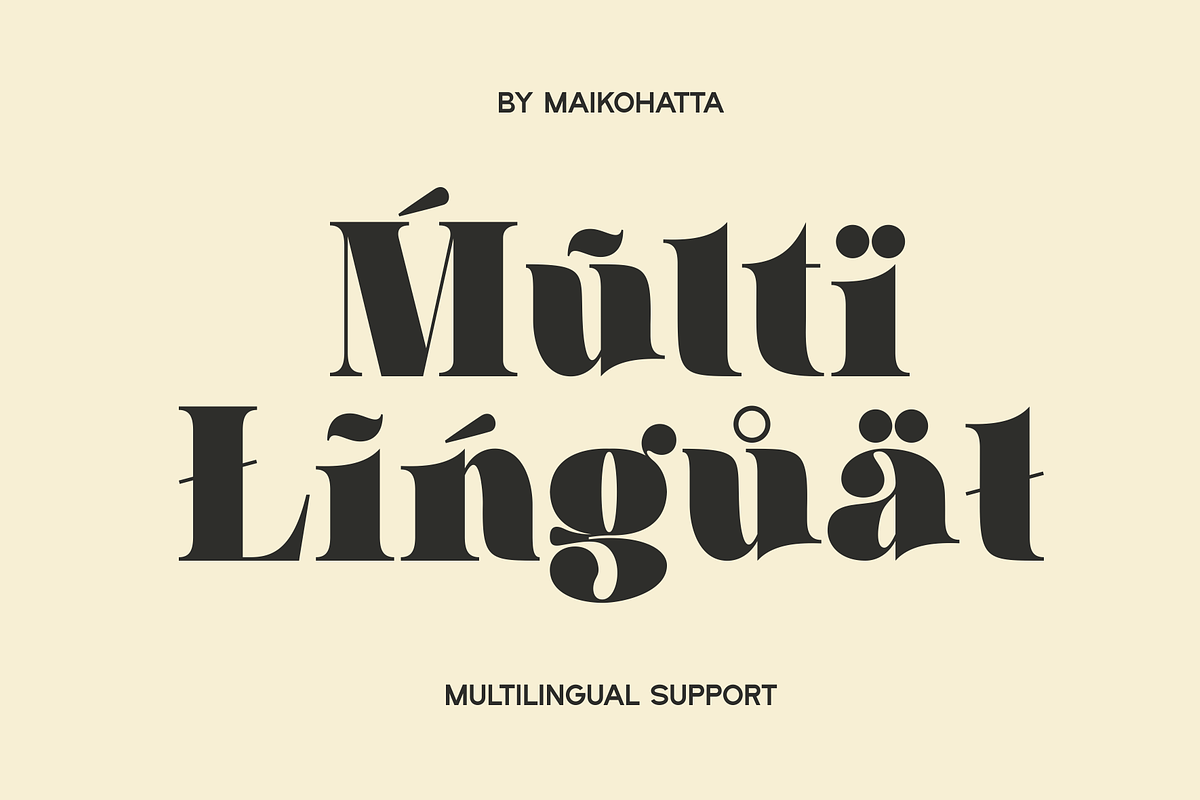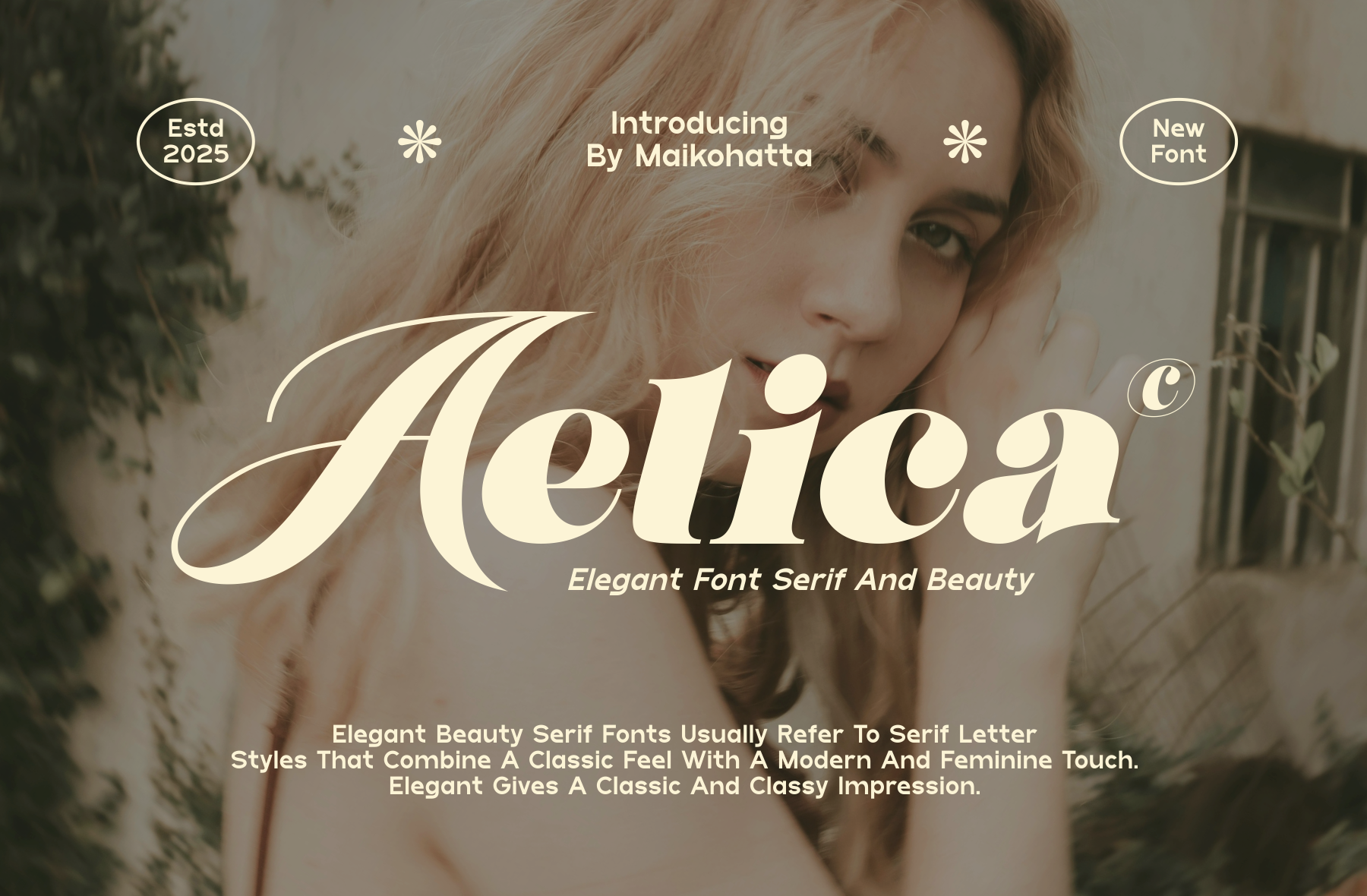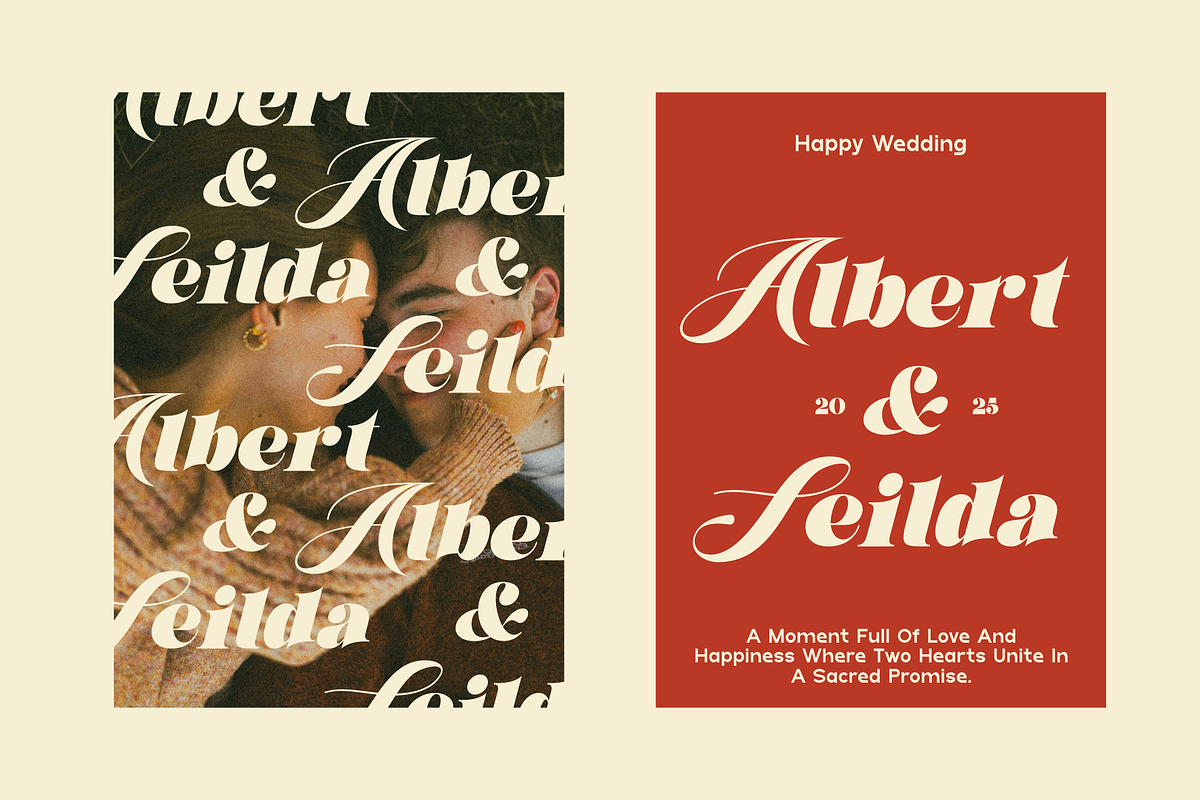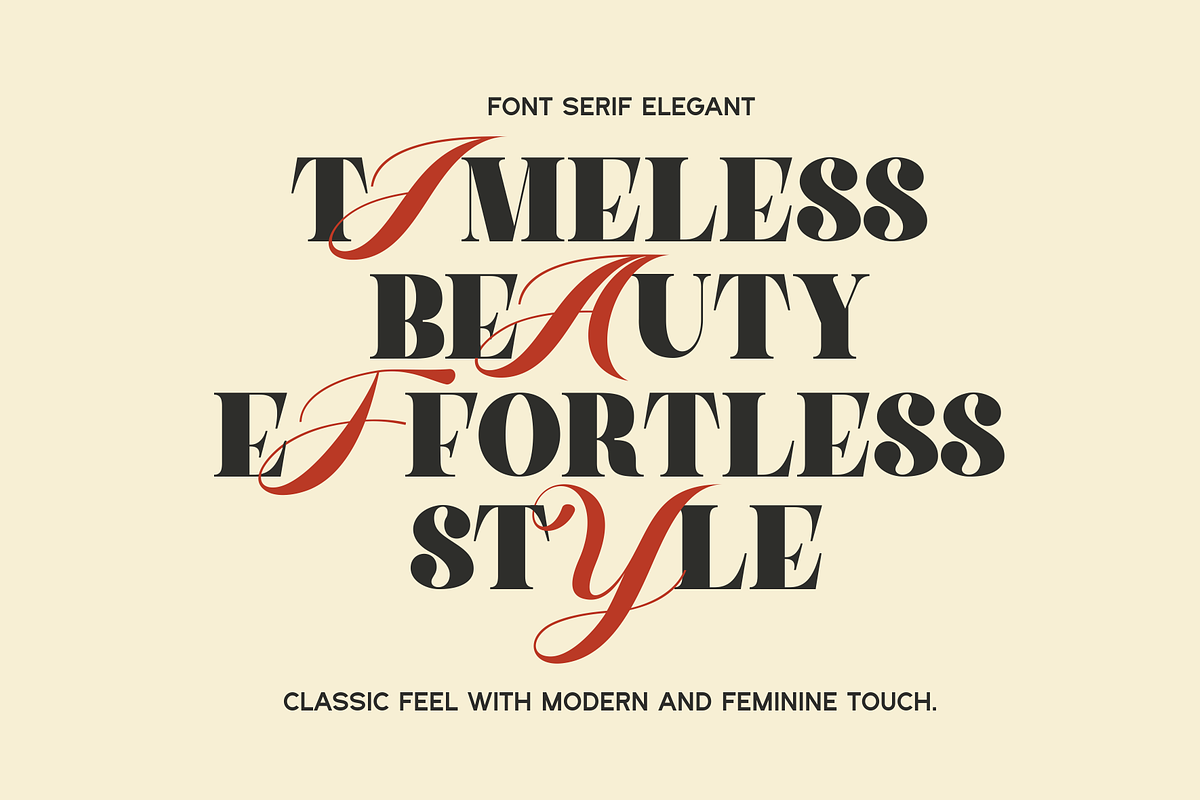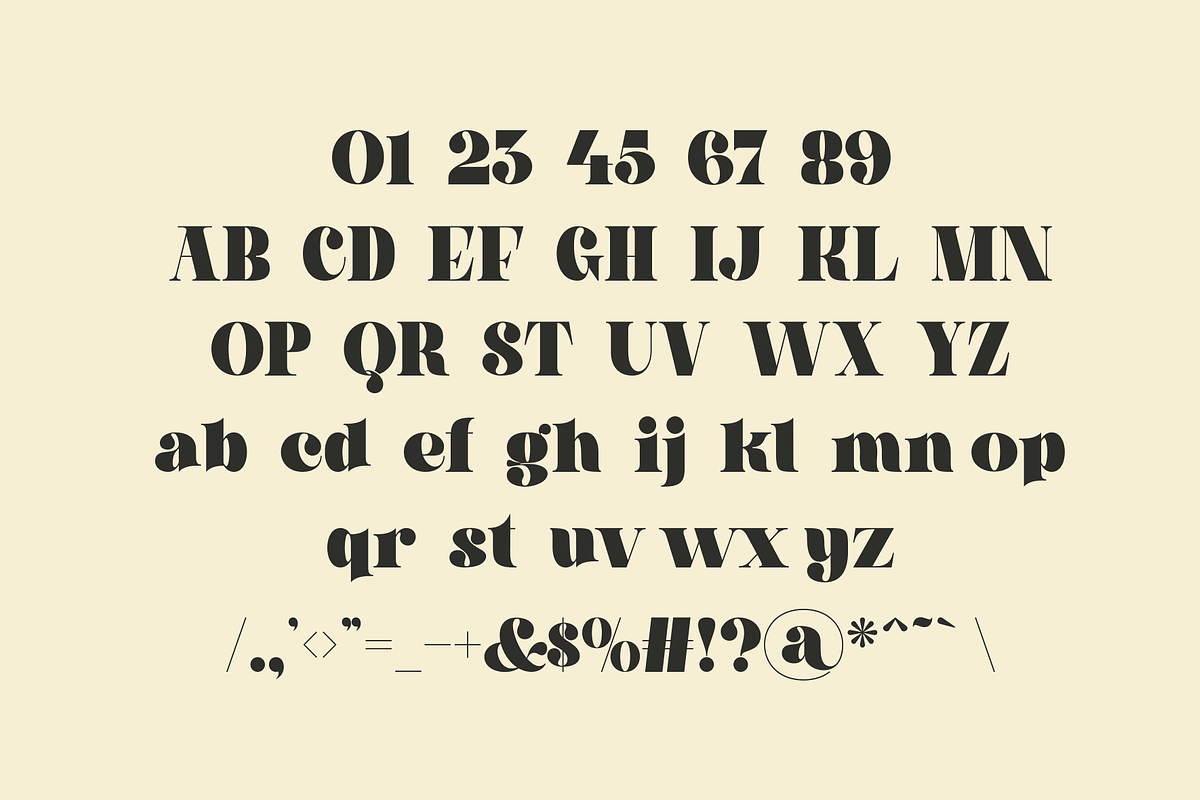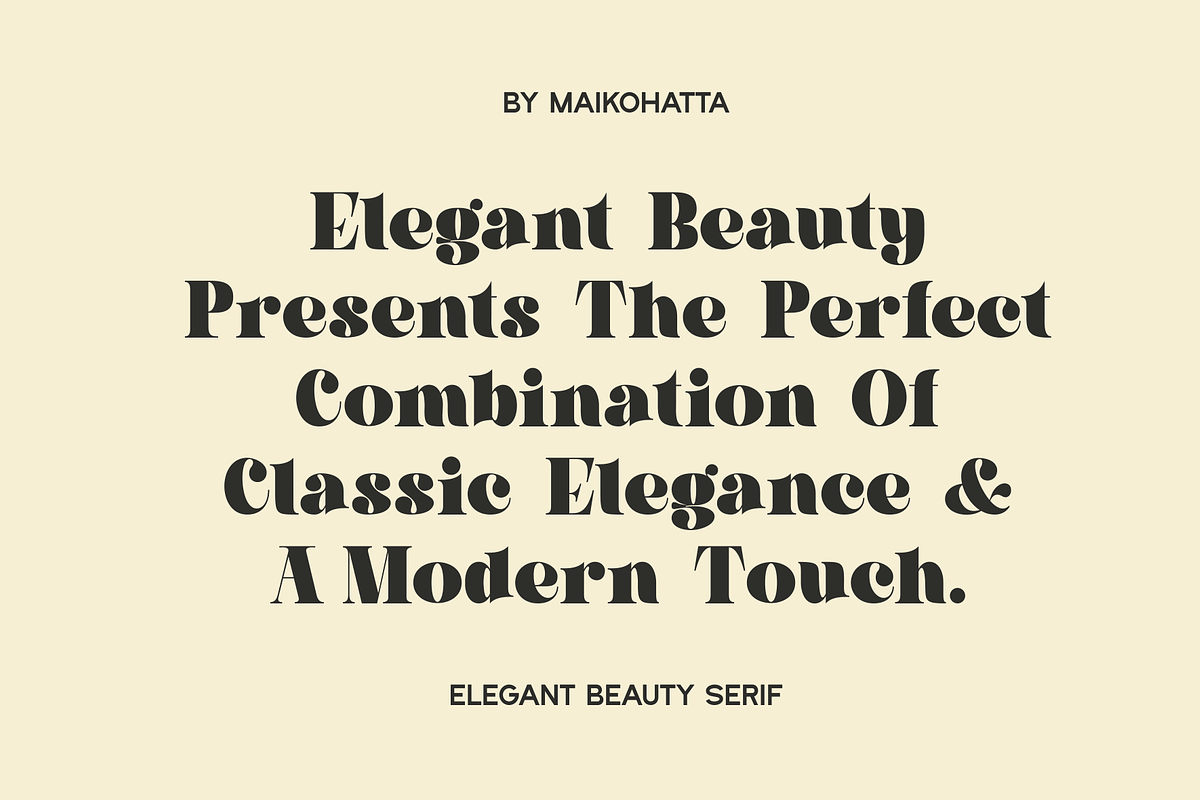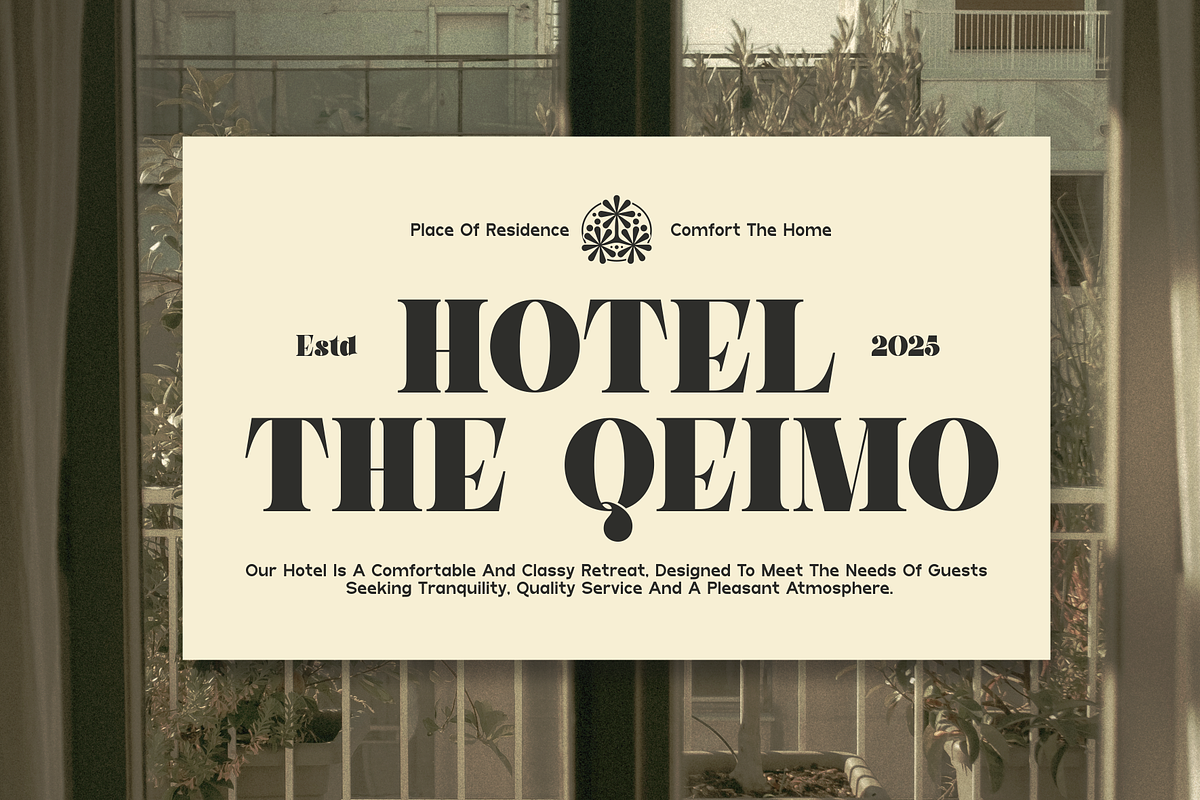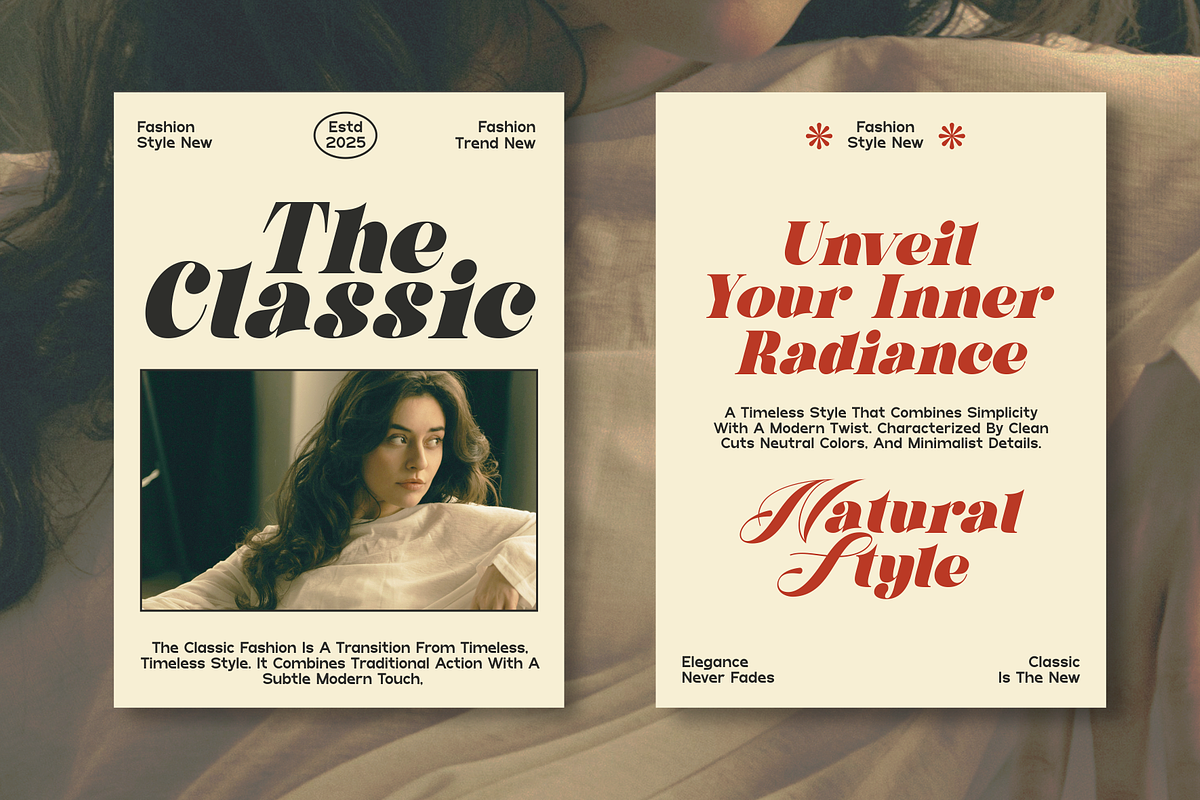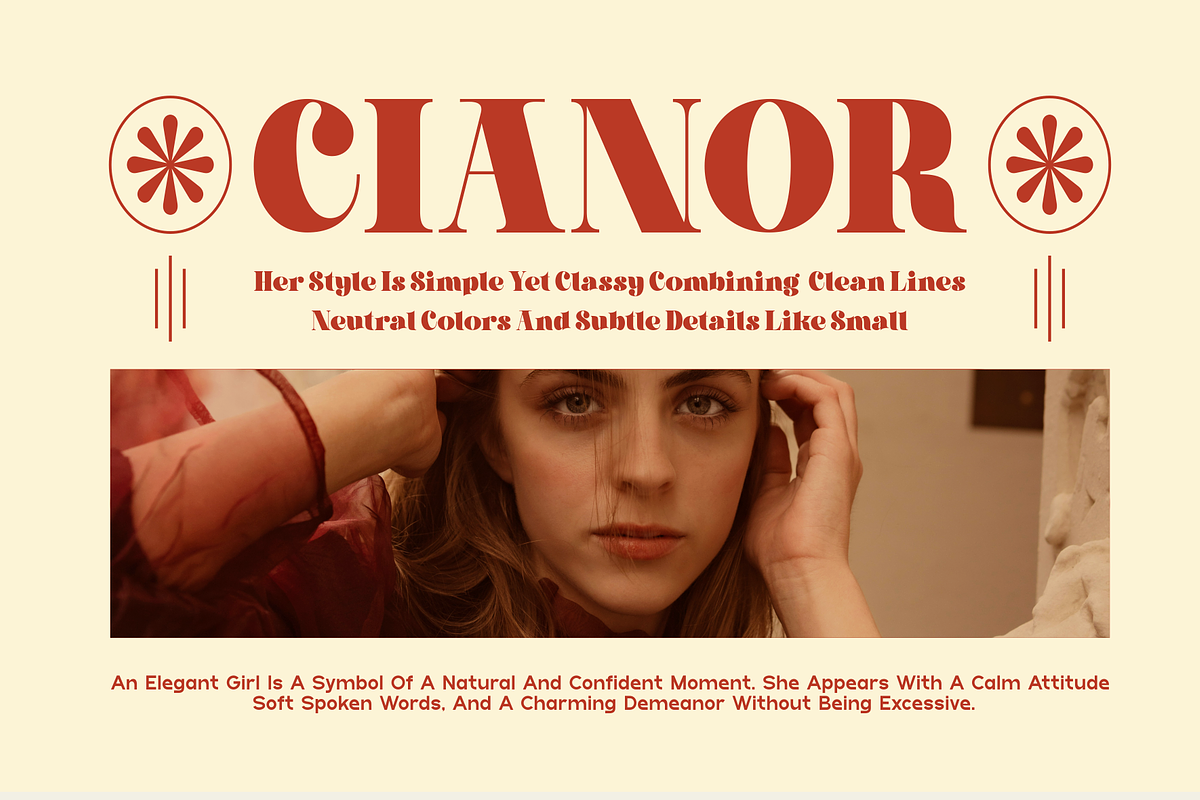
Aelica - Elegant Serif Font
Introducing our new product Aelica - Elegant Serif Font
This font is a type of letter that has special characteristics that create the impression of luxury, elegance and firmness. This font involves a series of design elements such as balanced thin and thick lines, gentle curves, and elegant and clean serifs. The sharp corners and fine details of each character create a highly aesthetic impression and exude an air of elegance.